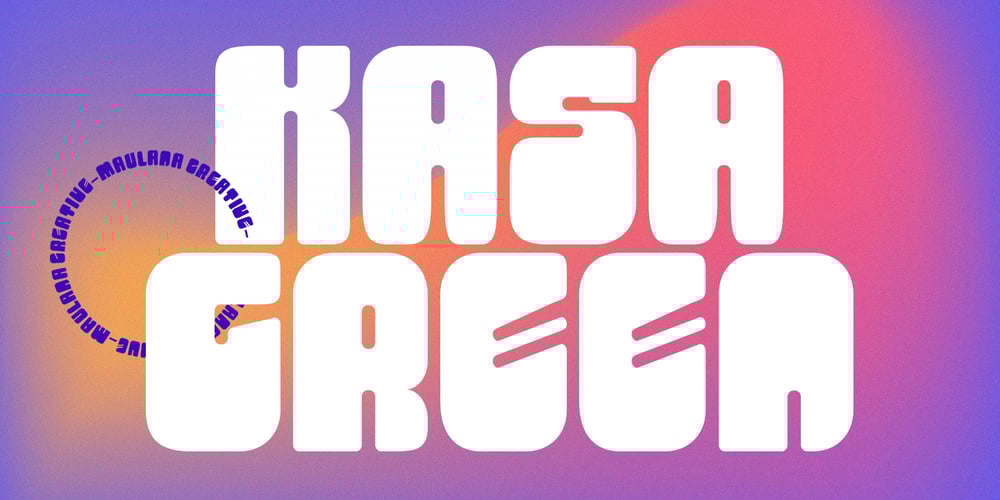
Kasa Green Font Family was designed by Gilang Maulana and published by Maulana Creative. Kasa Green contains 1 styles and family package options. Kasa Green is a fancy handwritten script font. With bold contrast stroke, fun character with a bit of ligatures and alternates. To give you an extra creative work. Kasa Green font support multilingual more than 100+ language. This font is good for logo design, Social media, Movie Titles, Books Titles, a short text even a long text letter and good for your secondary text font with sans or serif. Make a stunning work with Kasa Green font. Cheers, Maulana Creative